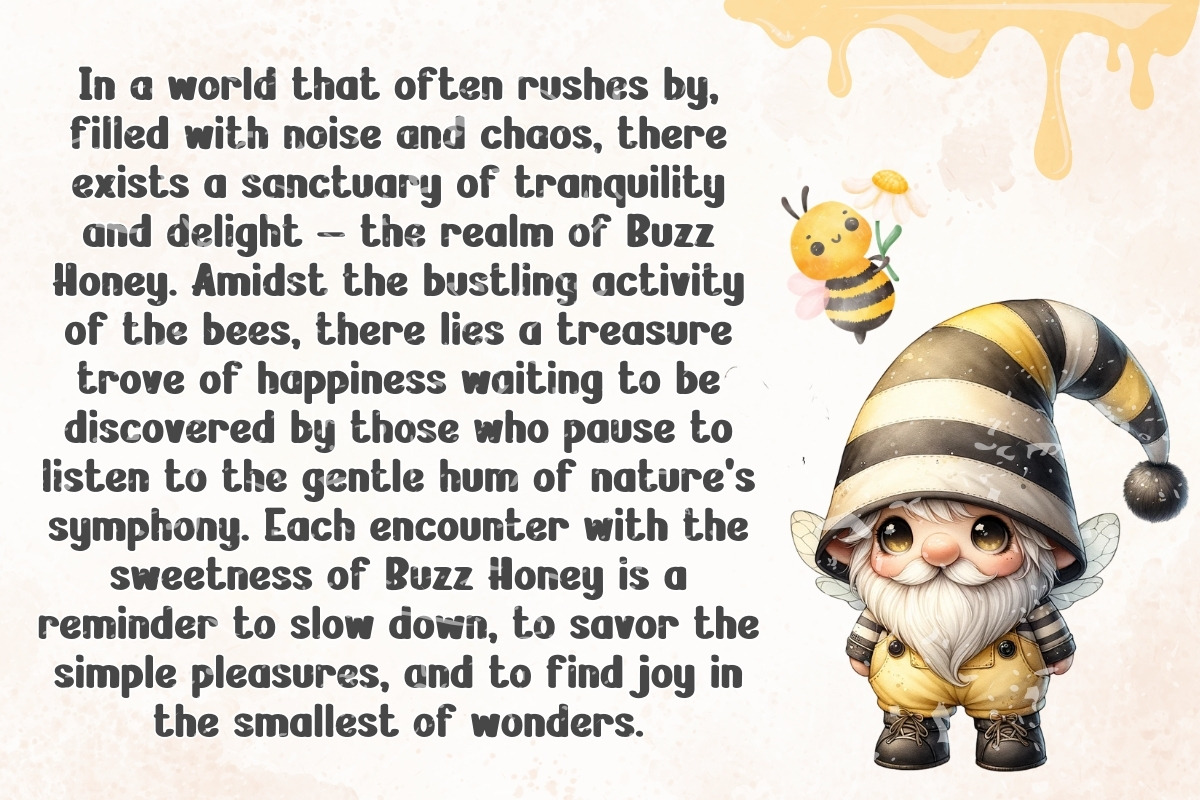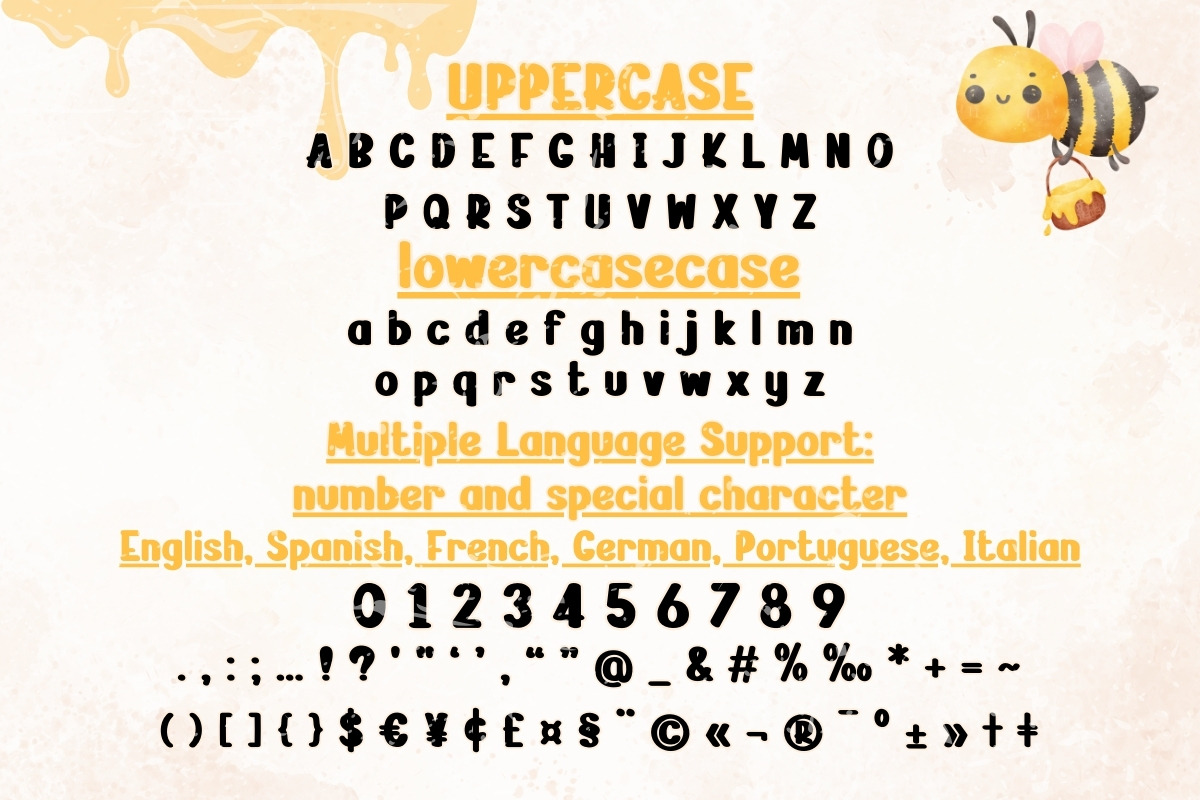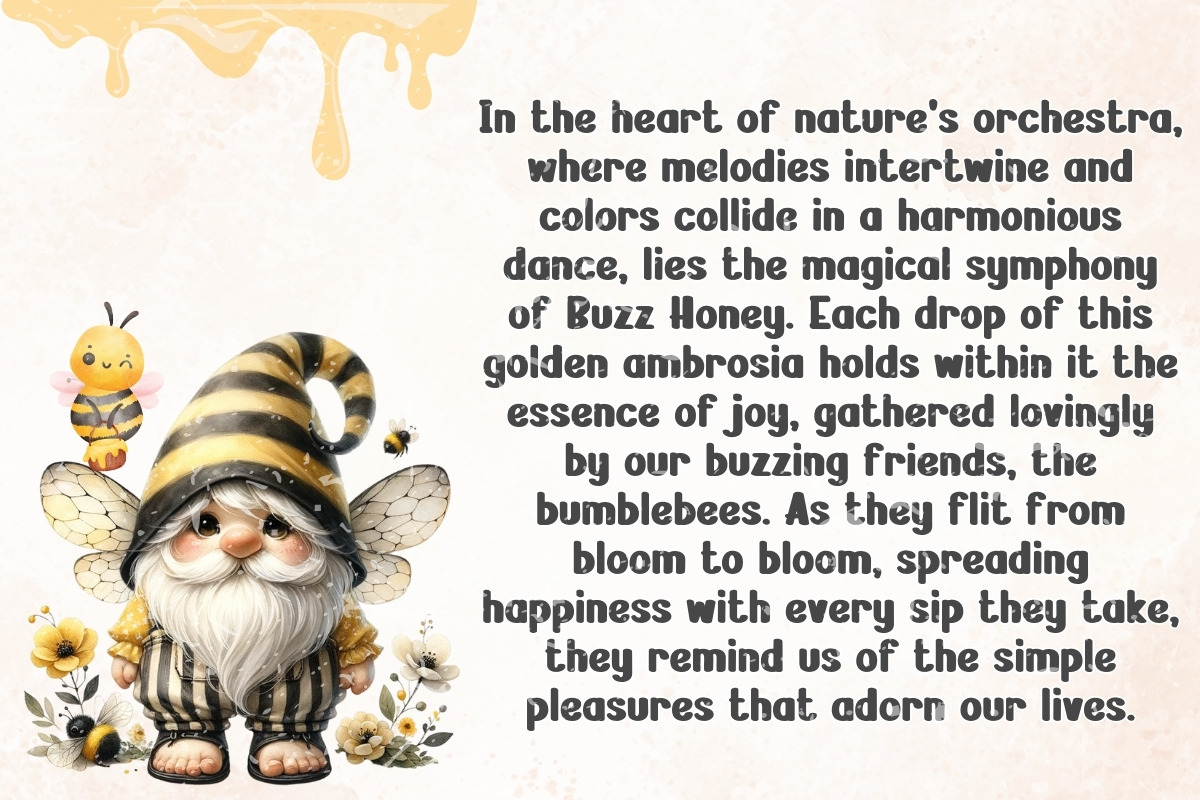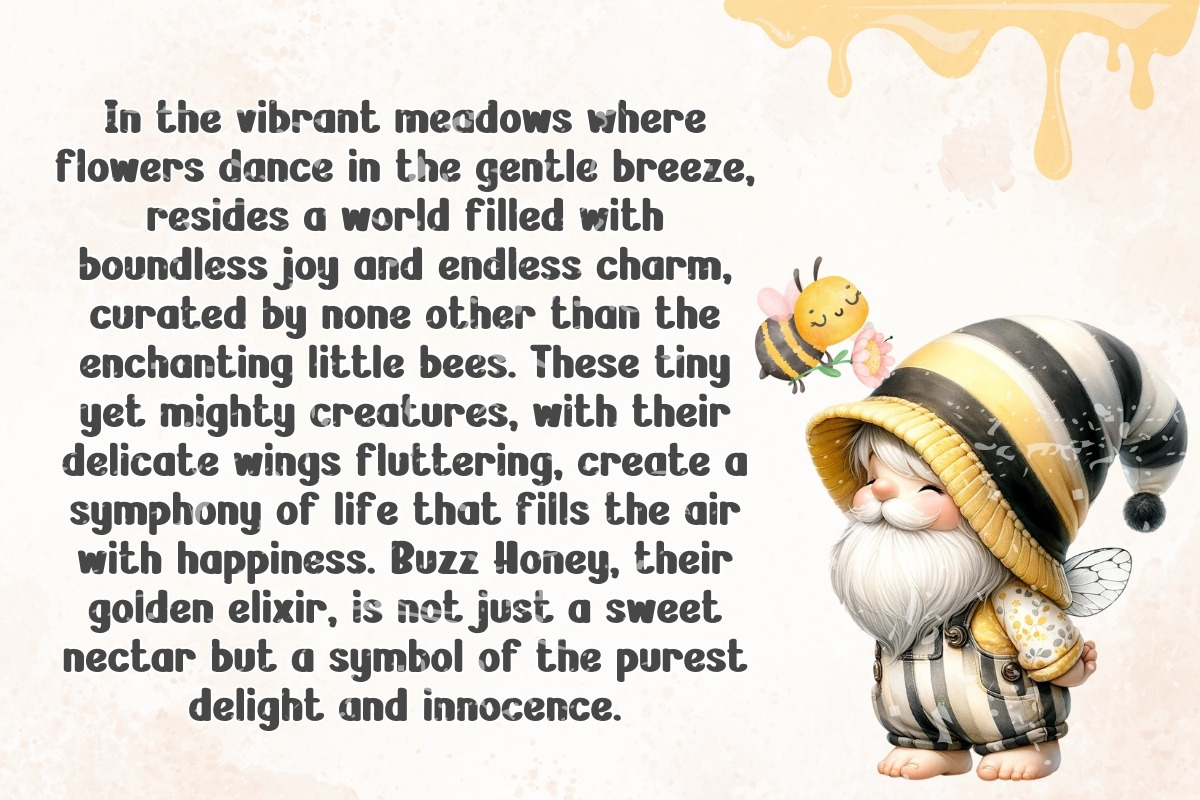
Buzz Honey - Handwritten
Introducing Buzz Honey Font - A Delightfully Cute Handwritten Typeface! Get ready to add a touch of whimsy and charm to your designs with Buzz Honey Font! This adorable handwritten typeface is bursting with personality, featuring playful curves and sweetly imperfect lines that give your text a warm, inviting feel. Perfect for greeting cards, invitations, posters, and more, Buzz Honey adds a delightful touch of cuteness to any project. Download it today and let your creativity buzz with excitement!